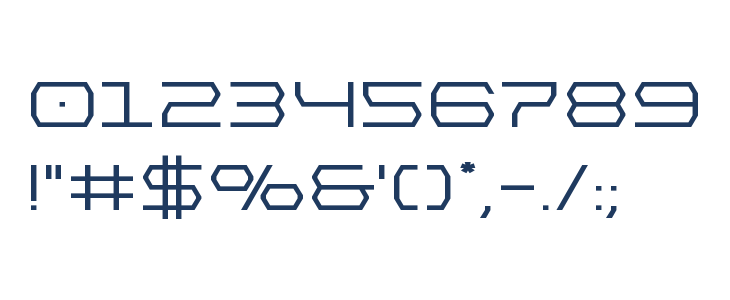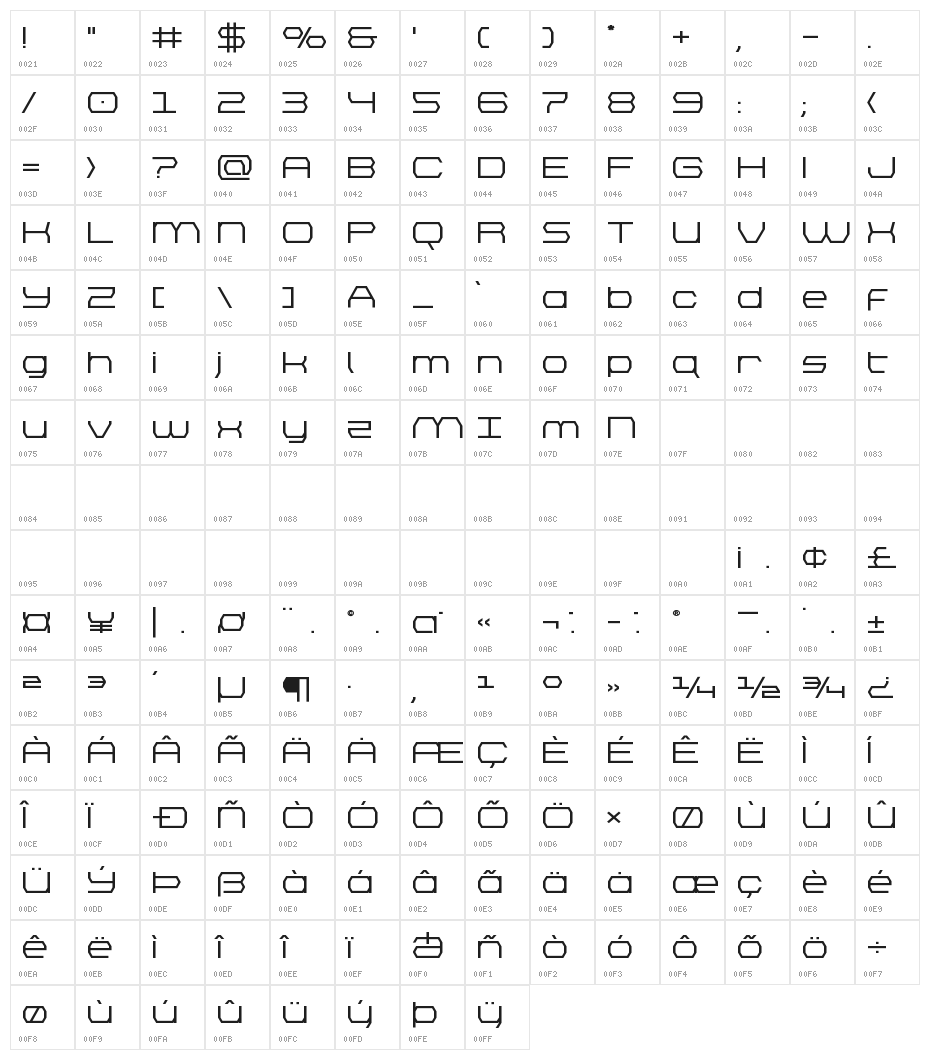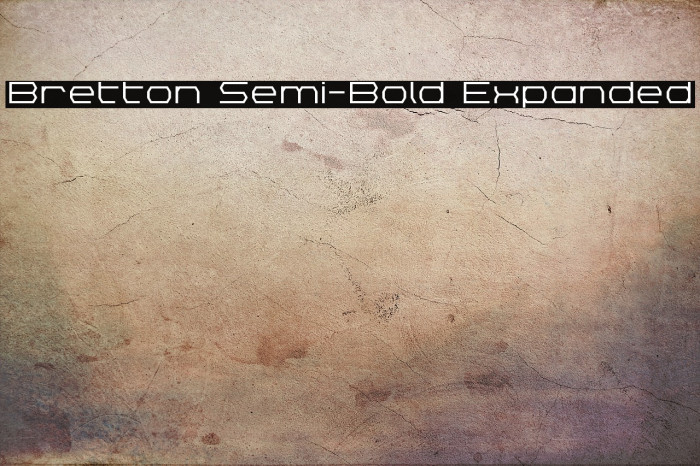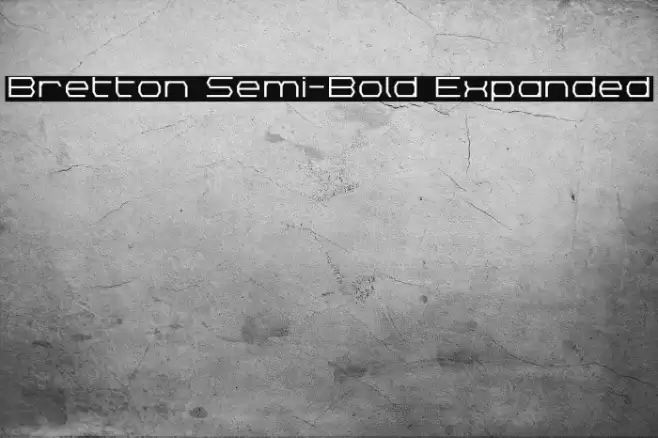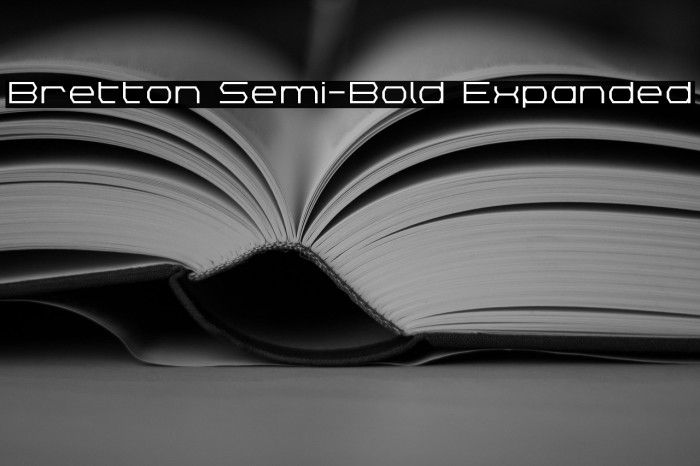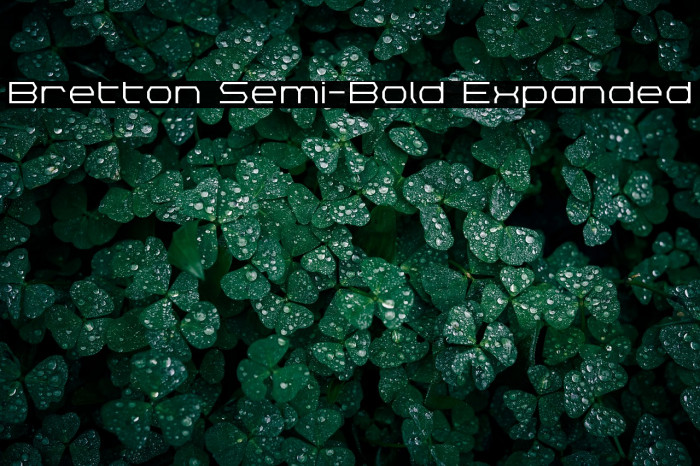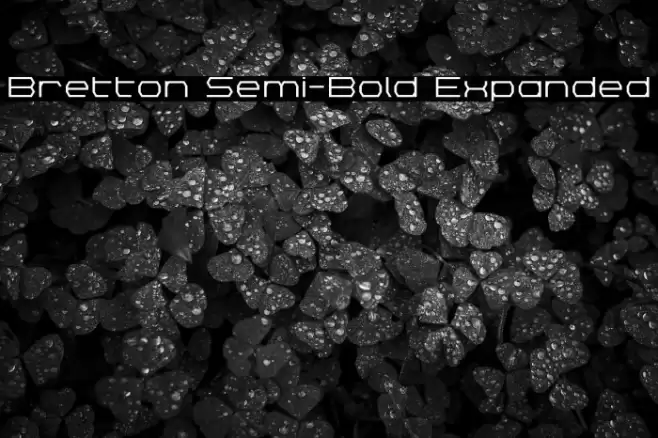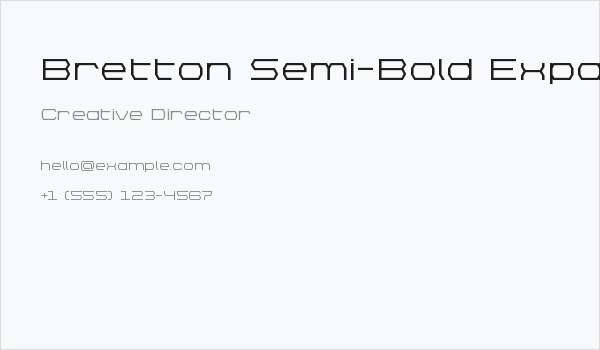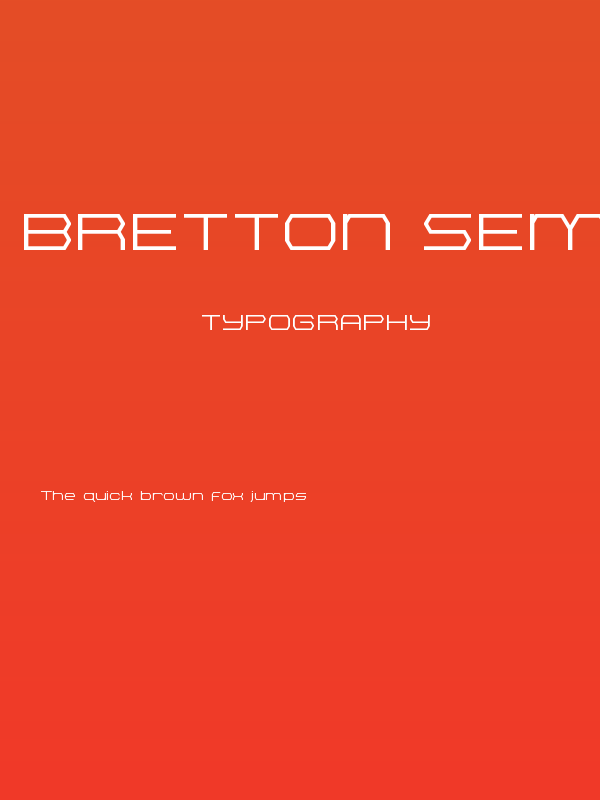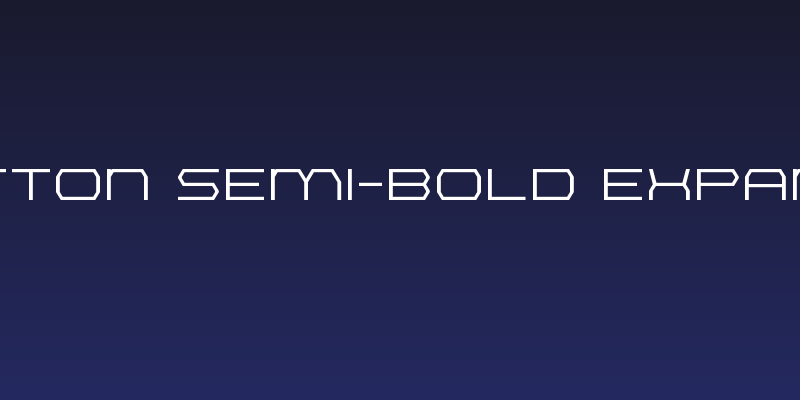
Bretton Semi-Bold Expanded Font
Bretton Semi-Bold Expanded Description
This font features a geometric and futuristic design, characterized by its semi-bold weight and expanded width. The characters have a distinct angular and modular appearance, with consistent stroke thickness that gives it a uniform look. The uppercase and lowercase letters maintain a similar structure, enhancing readability while retaining a unique style. The numerals and special characters follow the same design principles, ensuring cohesion across all glyphs. This font's modern aesthetic makes it suitable for contemporary and tech-oriented projects.
| Proposed Projects | Ideal for technology branding, sci-fi themed designs, modern posters, and digital interfaces. |